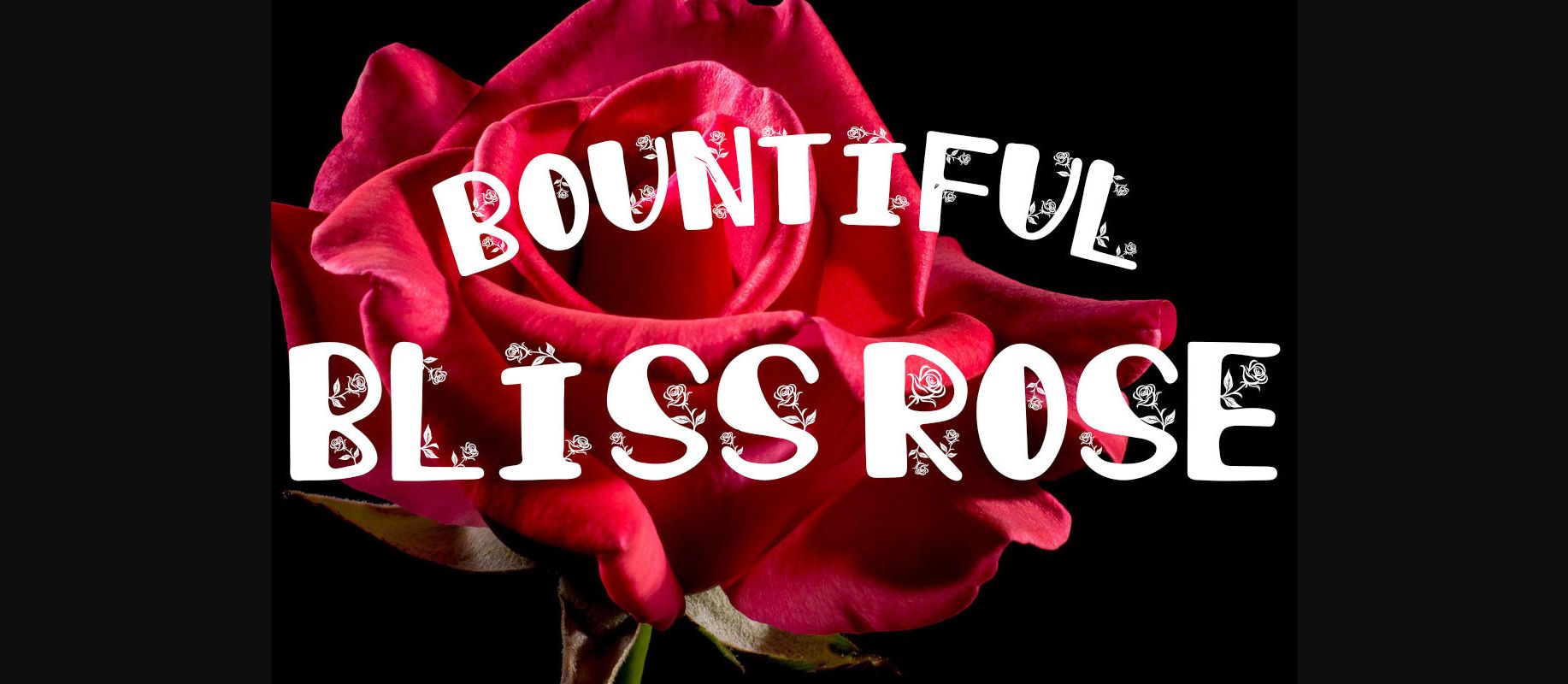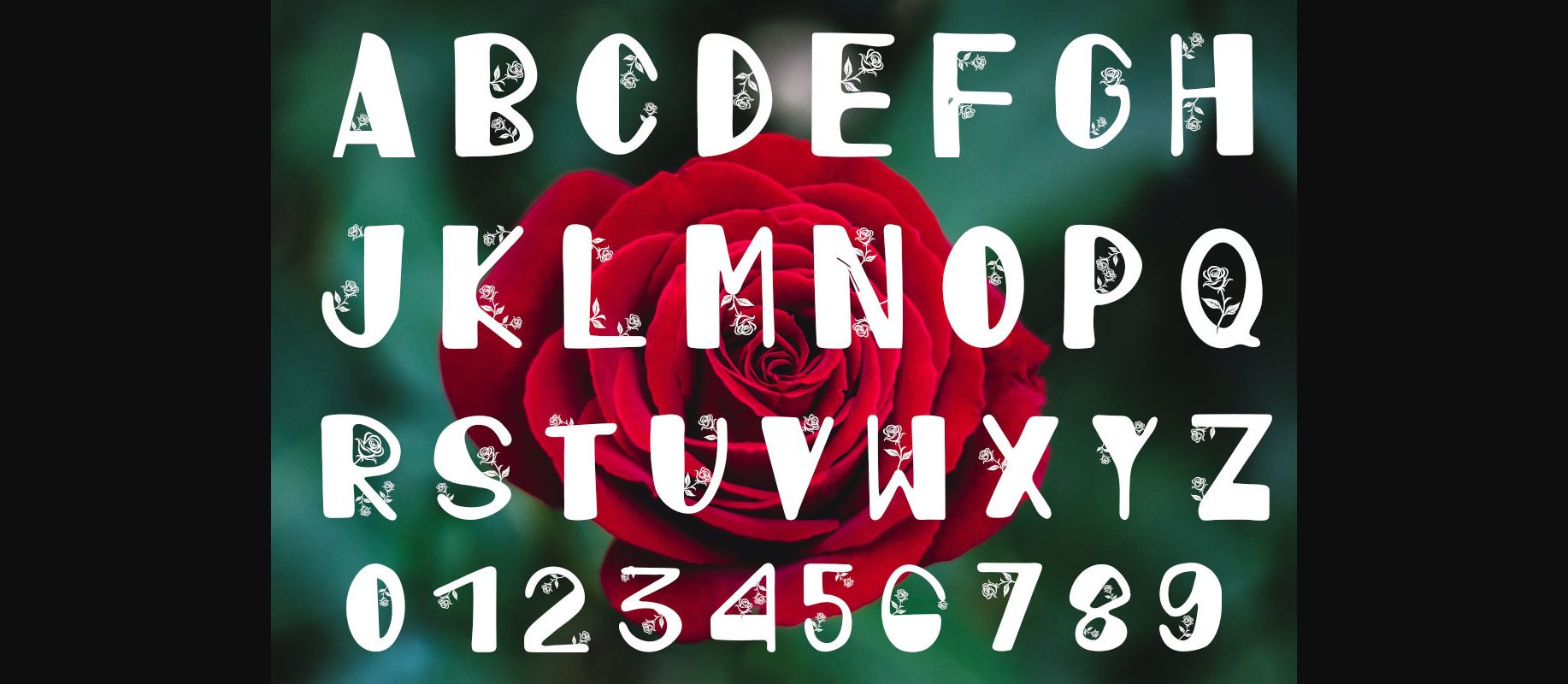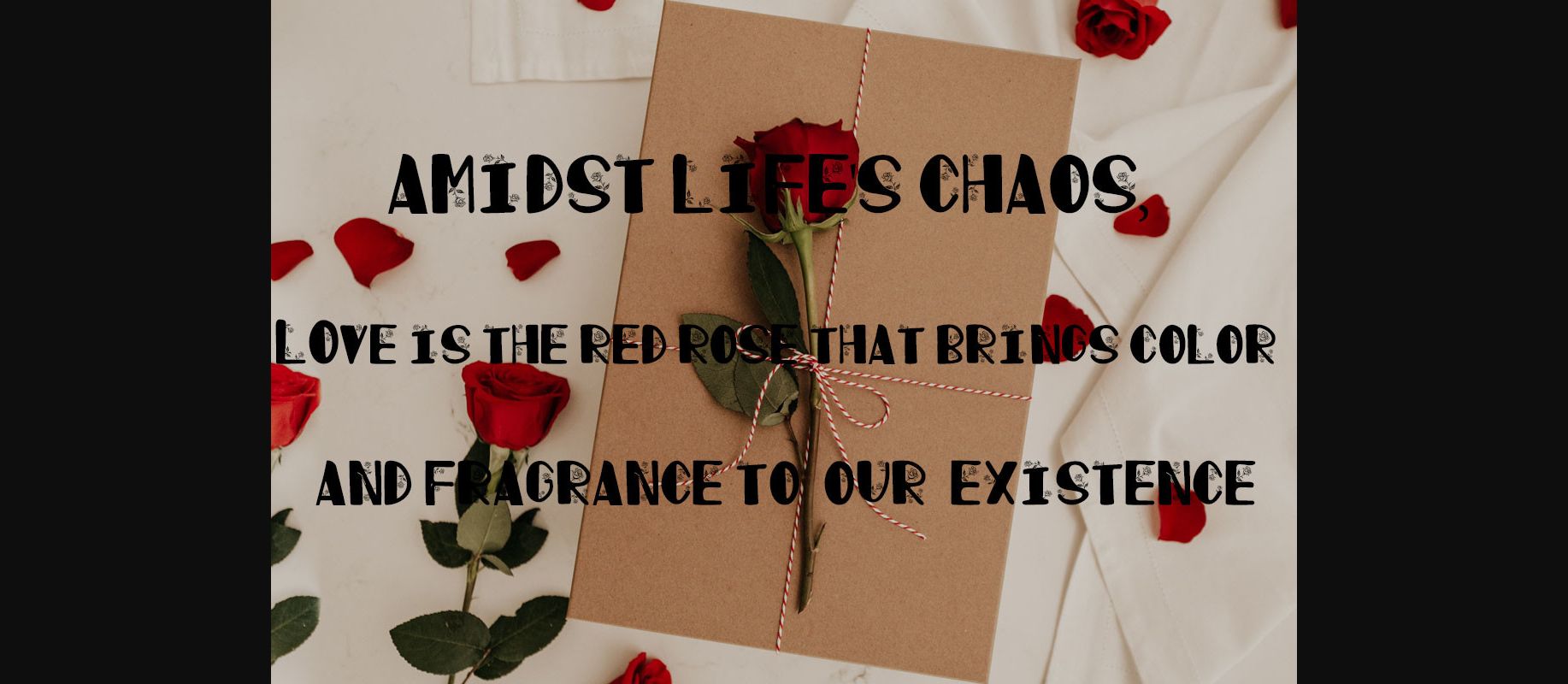
About Bountiful Bliss Rose Font
Introducing the enchanting “Bountiful Bliss Rose Font” — a true masterpiece in the realm of decorative fonts, designed to infuse your projects with an irresistible touch of elegance and abundant joy. Crafted with meticulous attention to detail, this exquisite typeface is the epitome of enchantment, bringing forth a captivating blend of sophisticated design and the timeless beauty of delicate rose petals.
Every letter within the Bountiful Bliss Rose Font is meticulously adorned with graceful swirls and intricate embellishments reminiscent of the most exquisite rose blooms. Each character exudes a sense of opulence, evoking the feelings of being surrounded by a bountiful garden in full bloom, where the air is thick with the delightful fragrance of roses.
The Bountiful Bliss Rose Font is the perfect choice for those who seek to add a touch of romanticism, sophistication, and sheer happiness to their creative endeavors. Whether you’re designing invitations for a fairytale wedding, crafting heartwarming greeting cards, or seeking to elevate the visual appeal of your brand, this font will instantly capture the hearts of your audience.
Immerse your projects in the timeless beauty of Bountiful Bliss Rose Font and watch as it breathes life into your words. Every stroke of this font is a brushstroke of joy, every curve a whisper of elegance. Let your creativity flourish and enchant your customers with the delicate embrace of the Bountiful Bliss Rose Font, where every letter is a petal and every word is a bouquet of happiness.
Every letter within the Bountiful Bliss Rose Font is meticulously adorned with graceful swirls and intricate embellishments reminiscent of the most exquisite rose blooms. Each character exudes a sense of opulence, evoking the feelings of being surrounded by a bountiful garden in full bloom, where the air is thick with the delightful fragrance of roses.
The Bountiful Bliss Rose Font is the perfect choice for those who seek to add a touch of romanticism, sophistication, and sheer happiness to their creative endeavors. Whether you’re designing invitations for a fairytale wedding, crafting heartwarming greeting cards, or seeking to elevate the visual appeal of your brand, this font will instantly capture the hearts of your audience.
Immerse your projects in the timeless beauty of Bountiful Bliss Rose Font and watch as it breathes life into your words. Every stroke of this font is a brushstroke of joy, every curve a whisper of elegance. Let your creativity flourish and enchant your customers with the delicate embrace of the Bountiful Bliss Rose Font, where every letter is a petal and every word is a bouquet of happiness.